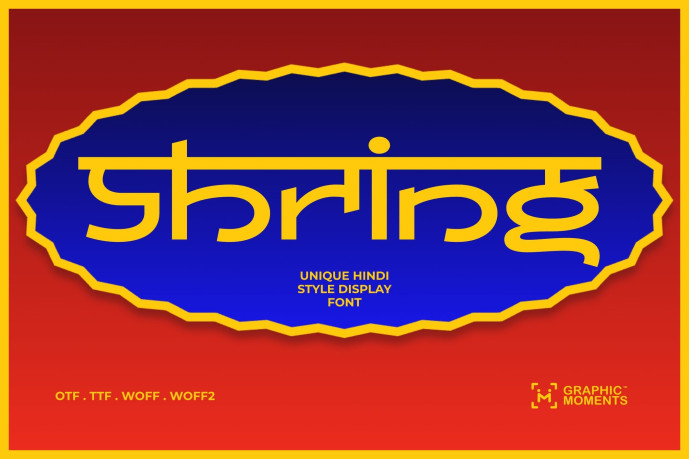
Shring – Hindi Font
Designer: Graphic_Moments
Shring – Hindi Font is a bold and elegant display font inspired by the timeless beauty of Indian scripts. Designed with strong Devanagari and Devnagri influences, it embodies the essence of Hindi, Marathi, Gujarati, Malayalam, and Telugu lettering styles in a modern interpretation. Each curve and stroke reflects the rhythm of Indian craftsmanship, blending traditional Sanskrit charm with contemporary aesthetics. Shring is perfect for designers who want to evoke the cultural richness of India through vibrant titles, logos, or festive designs inspired by Bollywood and Indian artistry.
Infused with the joyous energy of Hindu festivals like Diwali and Deepavali, Shring radiates celebration and spirituality. Its geometric precision and decorative flair make it ideal for use in cultural posters, religious branding, or editorial layouts that seek a touch of Indian authenticity. Whether you’re designing for an Indian event, Bollywood project, or festive campaign, Shring brings a radiant balance of tradition, elegance, and bold visual impact that truly embodies the heart of India.
Timeless Hindi essence, reimagined for today